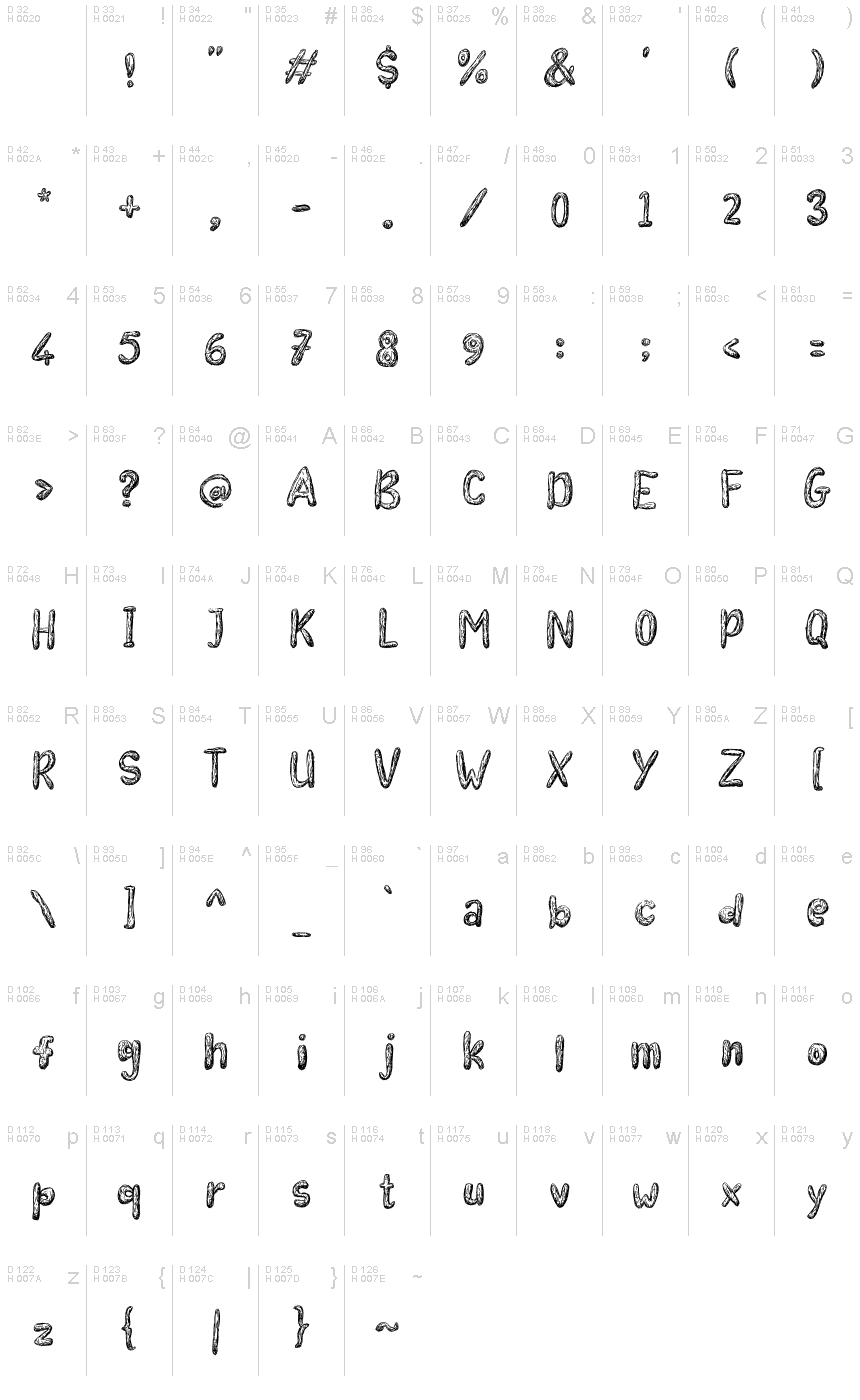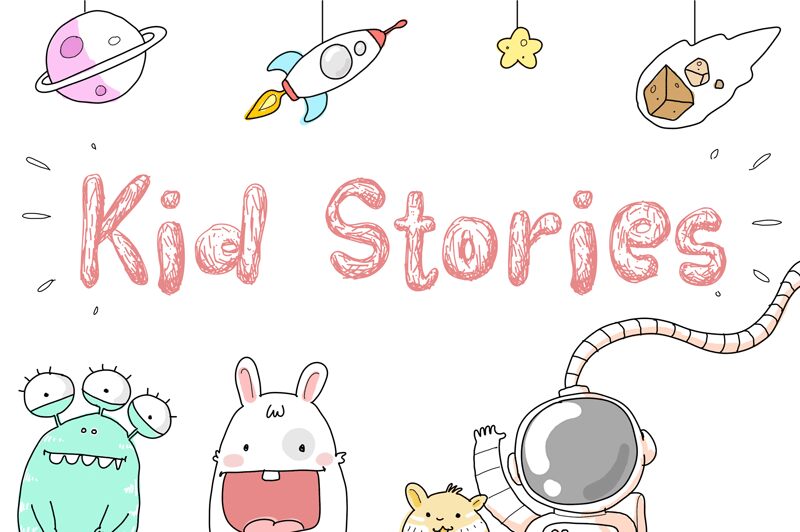
KidStories
Kid Stories by Royaltype is the perfect font for projects that require a playful and cheerful touch. This bold display font captures the essence of childhood with its cartoon style, making it ideal for children's books, posters, and packaging design. Its wide range of weights makes it versatile enough to use in logos or branding materials, while its fun and creative design will add personality to any project. Kid Stories is sure to bring a smile to your face and delight your audience with its whimsical charm.